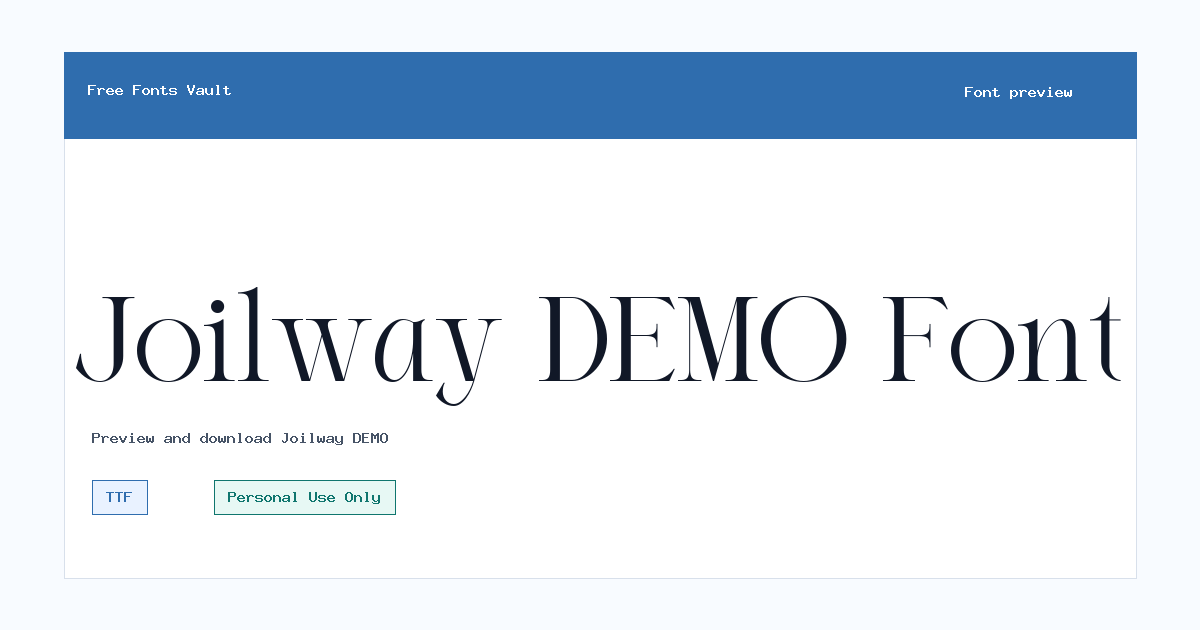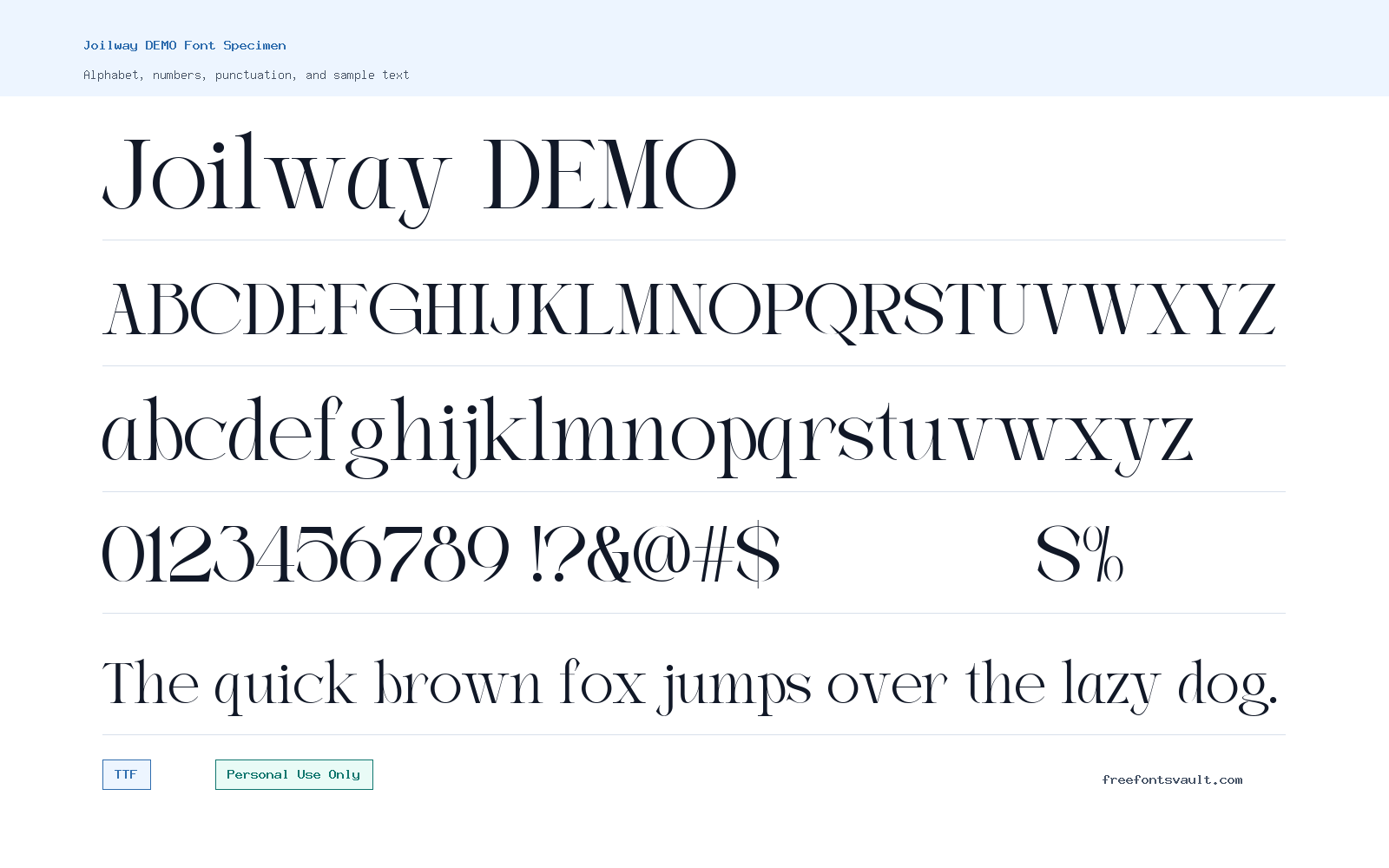
Joilway DEMO
Joilway DEMO is a serif display font from Say Studio with a refined, editorial look. It is best treated as a preview font for personal projects, concept work, and testing before buying the proper license for commercial use.
About Joilway DEMO
Joilway DEMO has the kind of serif styling that works well when the type needs to feel polished without becoming too busy. The letterforms are suited to short, high-impact text such as names, headings, packaging mockups, invitations, mood boards, and brand presentation samples. Several font listings describe Joilway as a serif ligature font, and the demo file is a TrueType font, so it should be easy to install and test in common design apps. Because this is the demo version, it is better to preview it carefully rather than assume it has every glyph, alternate, or style from the full family.
Use Joilway DEMO where the text can breathe. It will usually look better in larger sizes than in long paragraphs, especially if you are testing it for posters, logos, social graphics, or editorial headers. Try it first with the real words you plan to use, because display serifs can change character depending on letter combinations, spacing, and capitalization. If you are exploring logo work, keep the personal-use limit in mind: it can help you judge the direction, but a paid or commercial license is needed for client work, business branding, products, advertising, or any public commercial use. Pair it with a quiet sans serif or a restrained text serif so Joilway can remain the focus.
For web mockups, Joilway DEMO can be useful in hero sections, luxury-style landing page concepts, fashion layouts, boutique packaging previews, and invitation pages. Keep body copy in a more readable companion font, then use Joilway for the main title, pull quote, or short callout. If the design starts to feel too decorative, reduce tracking, simplify the surrounding layout, and let the font carry only one or two key text elements. The safest process is to test the demo, confirm the character coverage you need, and then obtain the correct license before the design moves into real commercial use.
• Serif display style suited to titles, branding concepts, invitations, and editorial-style layouts
• Listed by font sites as a ligature serif with Regular and Italic styles in the broader Joilway family
• Best used for short text, large previews, and visual identity mockups rather than dense reading copy
• Logo concepts and brand mood boards for personal testing
• Poster titles, magazine-style headers, and social media graphics
• Wedding invitations, event cards, and elegant stationery drafts
• Fashion, beauty, boutique, and luxury-style web mockups
• Packaging previews and product-name typography tests
Joilway DEMO is credited to Say Studio. Say Studio is also listed as the foundry/designer on font download pages for this font.
Who designed Joilway DEMO?
Joilway DEMO is credited to Say Studio.
Is Joilway DEMO good for logos?
Can I use Joilway DEMO for body text?
It is better for headings and short display text. For paragraphs, pair it with a simpler font that stays readable at small sizes.
What should I test before using the font in a design?
Test the exact words, punctuation, numbers, accented characters, and spacing you need. Also preview it at the final size, because decorative serif fonts often behave differently in small text.